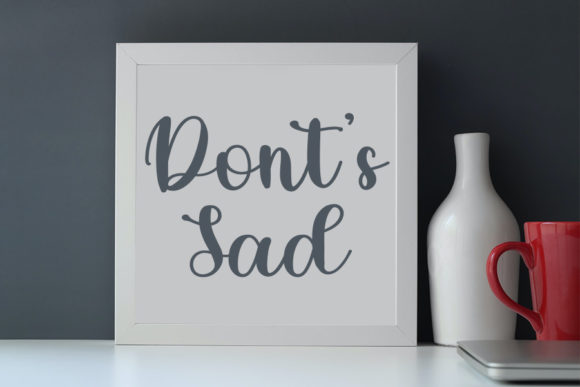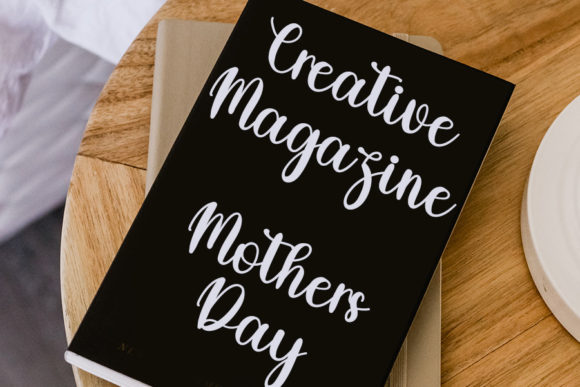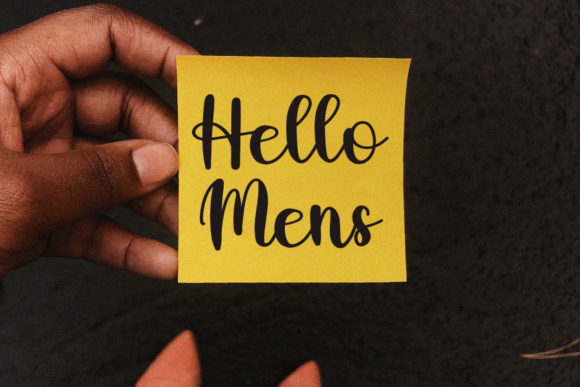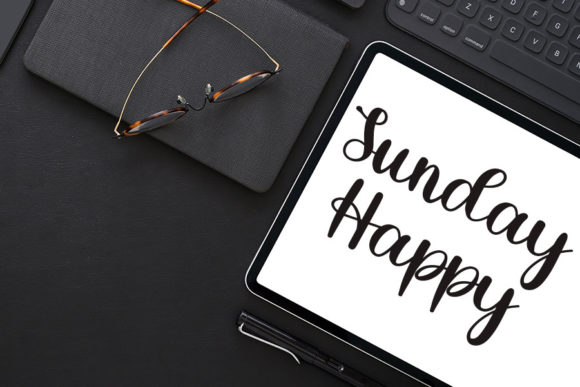
Signature is a simple and flowing handwritten font. Not too thin and not too thick, balanced and varied, this font was designed to enhance the beauty of your projects.
Signature is PUA encoded which means you can access all of the glyphs and swashes with ease!